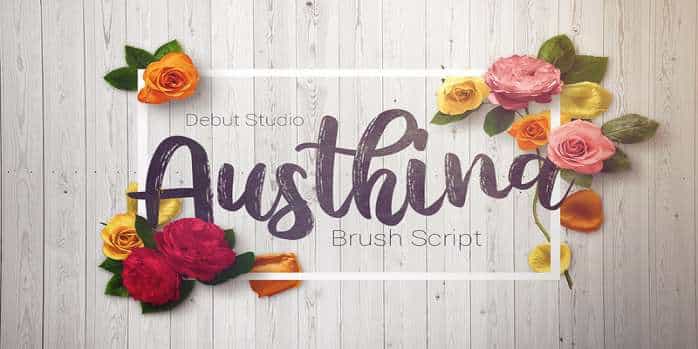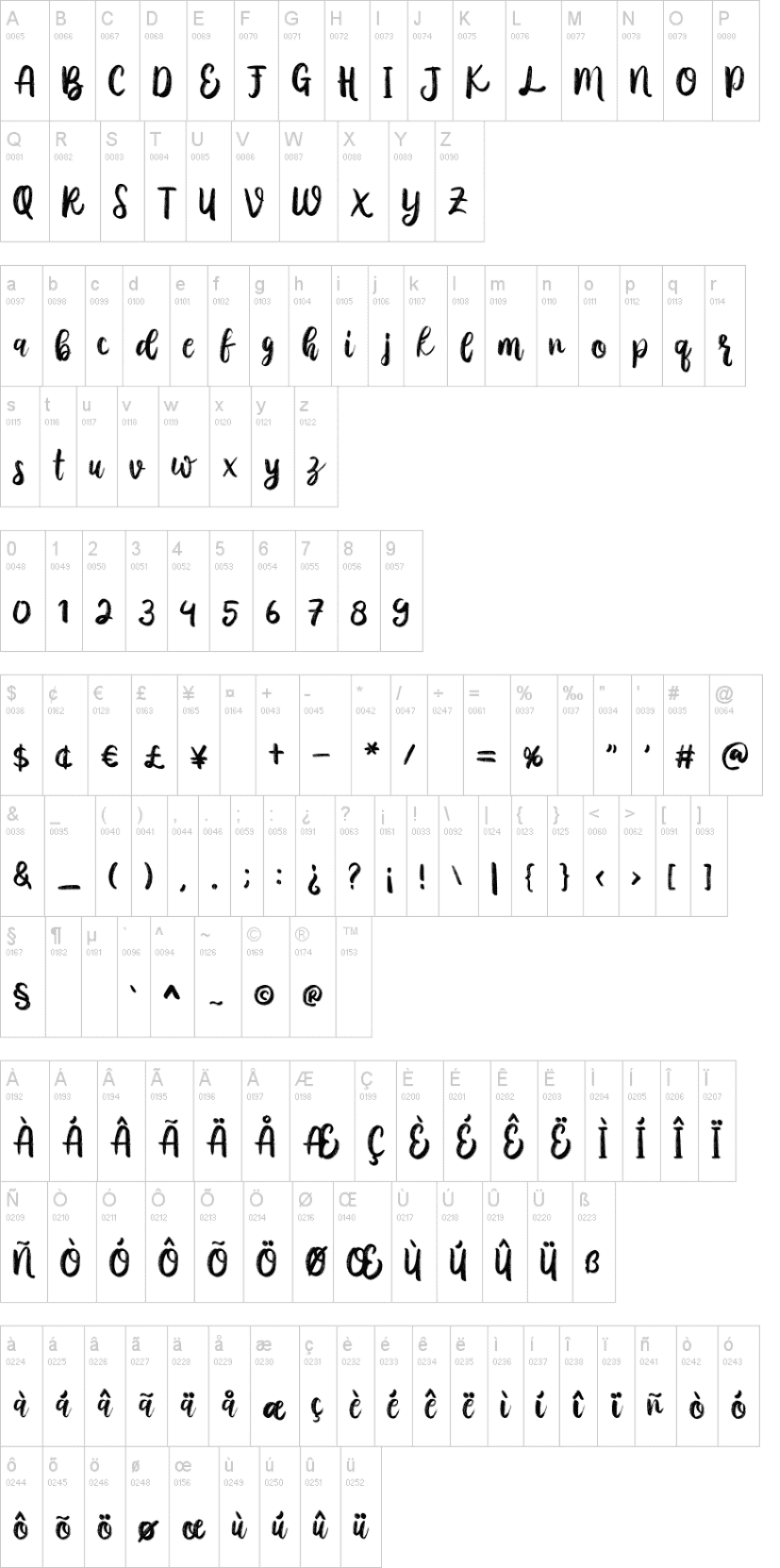
Introducing the Newest Font on Debut Studio: Austhina Brush Calligraphy Font. This font is ideal for the design of titles, magazines, newspapers, websites, for designing quotes, posters, business cards, and more. It has 2 style fonts, where you have the option to keep the text and look rather handwritten.